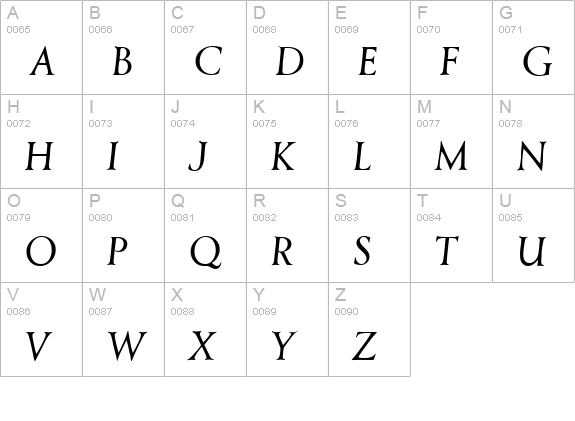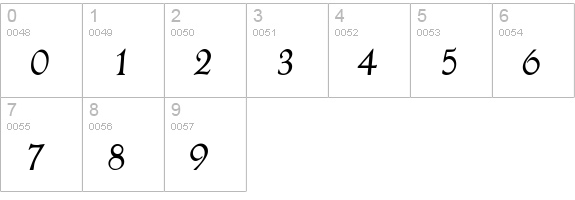
Aesop-Italic Font Details
Aesop-Italic is a distinctive, italic variant in the Aesop typeface family \xE2\x80\x94 well suited to design and typography projects.
Aesop-Italic font is a timeless and elegant typeface that exudes sophistication and style. With its sleek lines and graceful curves, this font is perfect for adding a touch of class to any project. The italicized version of Aesop offers a sense of refinement and flair, making it ideal for use in headlines, invitations, and branding materials. And the best part? Aesop-Italic font is available for free download at FontsMarket.com. Embrace the beauty and versatility of this stunning font without any cost, and elevate your designs to the next level with Aesop-Italic.